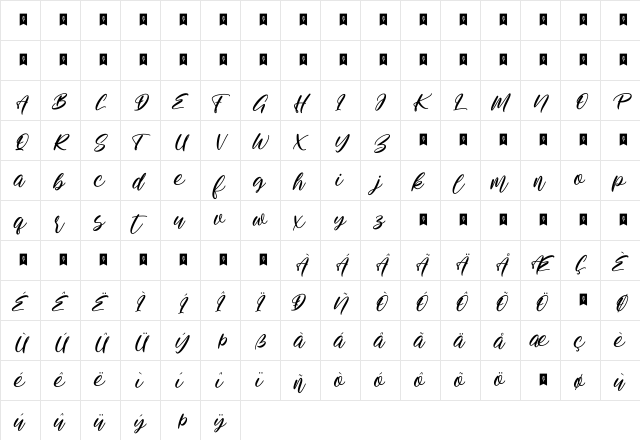
Allietta Regular Font Preview
Allietta Regular
Design Context for Allietta Typeface
Allietta is a composed and adaptable typeface that performs quietly and consistently across a wide range of design contexts.